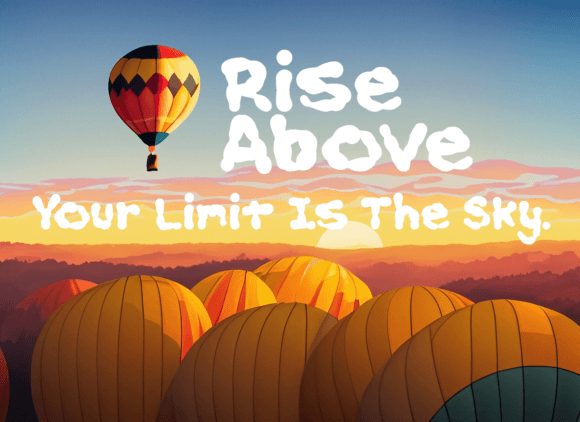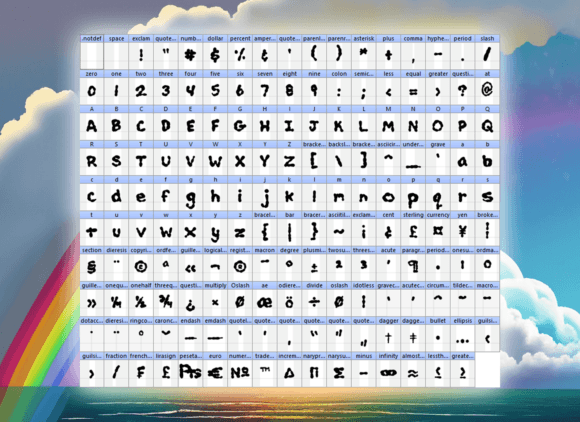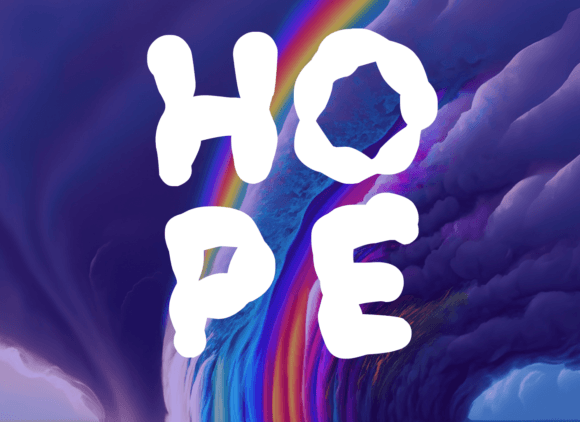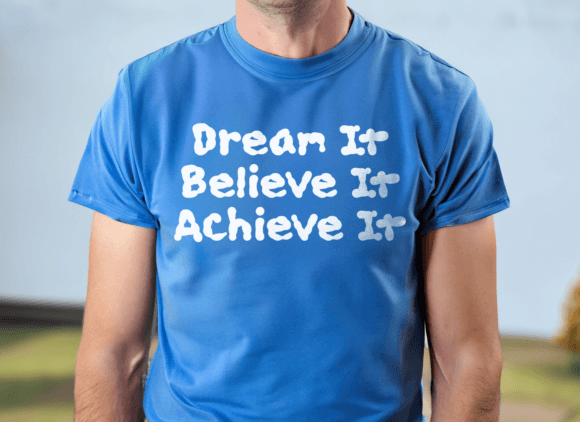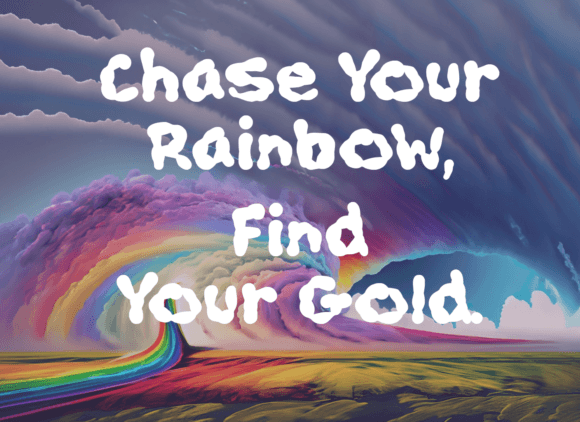
Introduction to Cloudglyphic Font
CloudGlyphic: The Typeface That Makes Every Project Dreamy CloudGlyphic—a font inspired by the sky, designed to elevate your art and crafts to the next level.
Seamlessly blending artistic detailing with readability, CloudGlyphic offers more than just characters; it delivers an experience – Sky-High Aesthetics: Designed to mimic the natural ebb and flow of cloud formations, adding a dreamlike quality to your projects.
Key Features of Cloudglyphic Font
Why Choose Cloudglyphic Font?
Cloudglyphic Font offers exceptional quality and versatility, making it a valuable addition to your design toolkit. Whether you’re creating for personal projects or commercial use, Cloudglyphic Font delivers professional results.